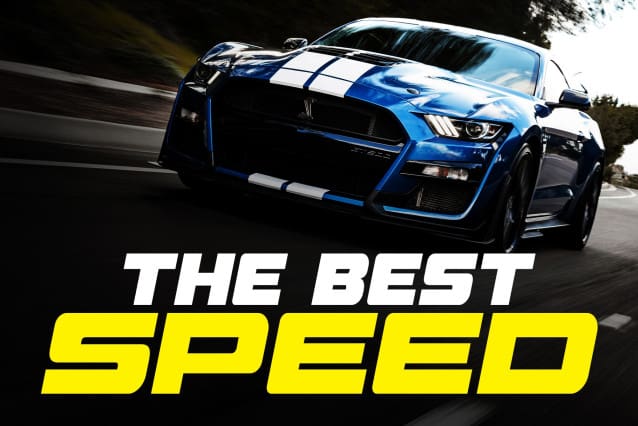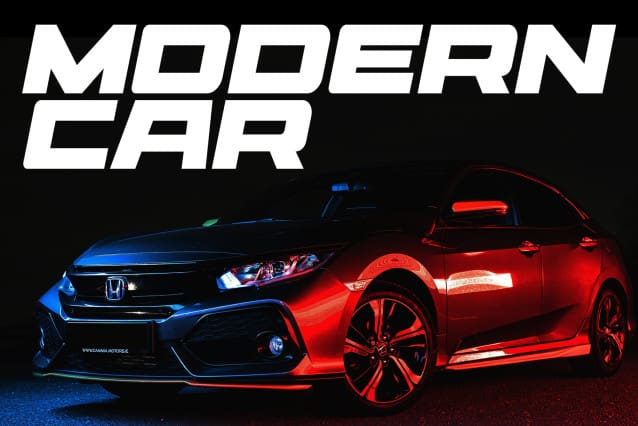
Racing Sport Font
Racing Sport Font is a font with a racing and sport theme. The rounded, slanted shape makes this font stand out because of its thickness and looks strong and very sporty.
Racing Sport is perfect for racing product logos, racing game covers, sporting events, automotive posters, automotive magazine covers, branding, product designs, labels and other creative projects.